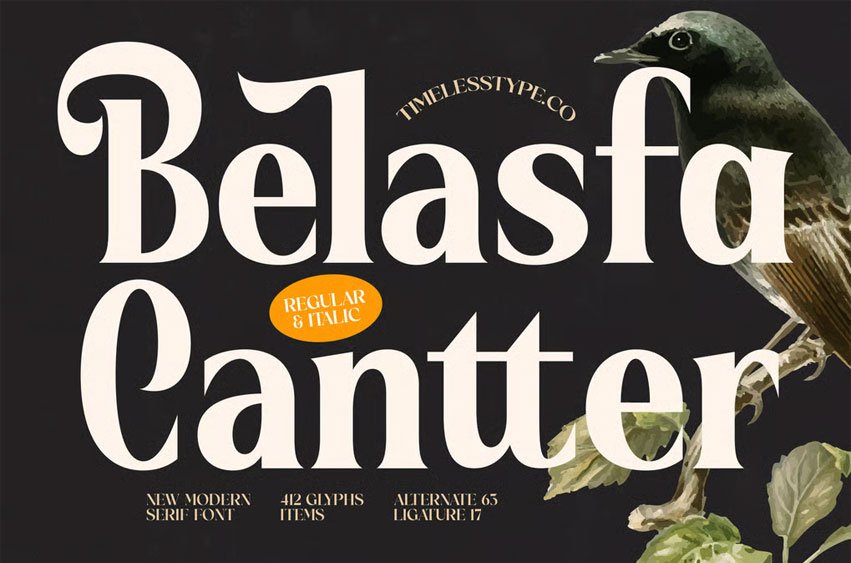
Belasfa Cantter Font is a new modern serif font that embodies refinement, balance, and timeless beauty. With 412 total glyphs, 63 alternates, and 17 ligatures, this typeface offers exceptional flexibility and creativity for branding, editorials, logo design, product packaging, and high-end invitations.
Featuring both Regular and Italic styles, Belasfa Cantter captures the sophistication of traditional serif fonts while introducing elegant modern curves. Each letter is carefully designed to deliver contrast and charm, making it an excellent choice for projects that demand confidence and class.